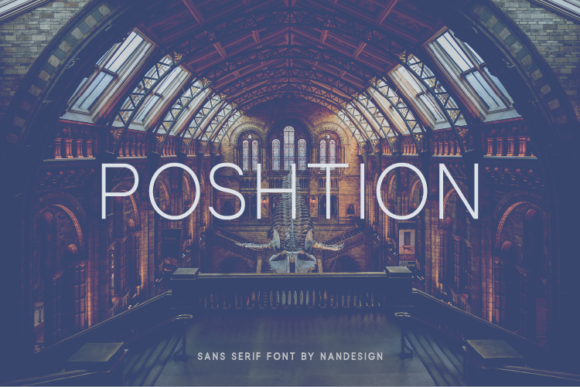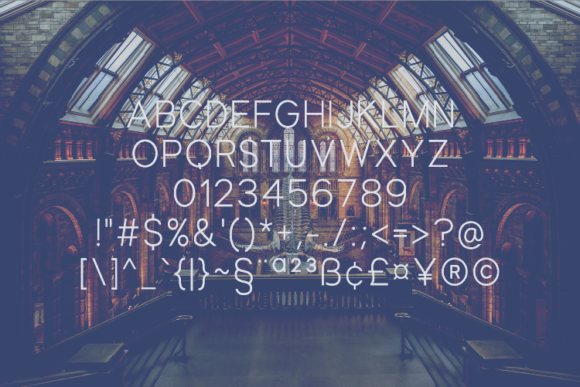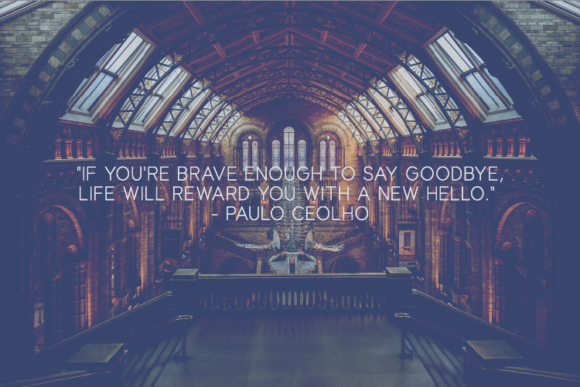
Poshtion Font: Modern Sans Serif for Elegant Logo Design
About the Poshtion Font
Crafted with precision, the Poshtion Font is ready to bring your ideas to life. Poshtion is a thin lettered and simple sans serif font.
Use it to create headings, gorgeous invitations, stunning logos, and various other designs that require a futuristic touch.
Poshtion’s clean lines and thin strokes make it ideal for headlines, short text blocks on posters, and sophisticated branding applications where a modern, minimalist aesthetic is desired. It excels in logo design and works well for high-end invitations or packaging that needs a touch of futuristic elegance. However, its thin weight makes it unsuitable for body text or UI elements where readability is paramount; long paragraphs will be difficult to read.
Its elegant yet somewhat restrained personality pairs well with warmer, more substantial fonts. Consider pairing Poshtion with a classic serif like Garamond for a sophisticated contrast, or a geometric sans-serif such as Futura for a consistent modern feel. A script font like Playfair Display could add a touch of handwritten luxury to designs incorporating Poshtion.
Ultimately, Poshtion’s strength lies in its ability to convey a sense of high-end simplicity and modern sophistication. It’s best suited for projects and brands that value clean aesthetics and a touch of futuristic refinement.
Poshtion Font Usage Examples
Poshtion Font Example